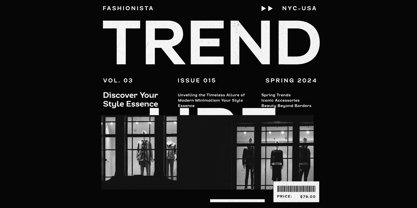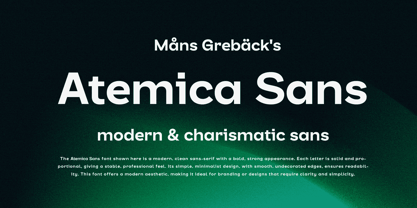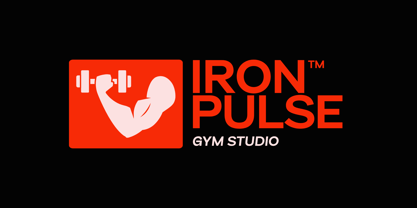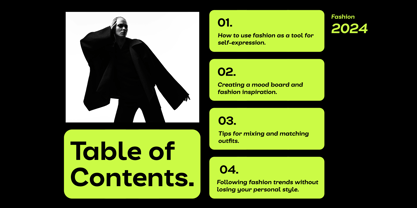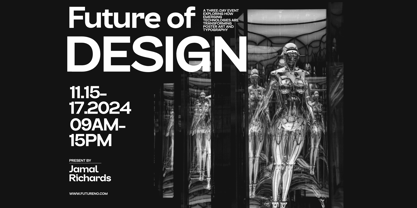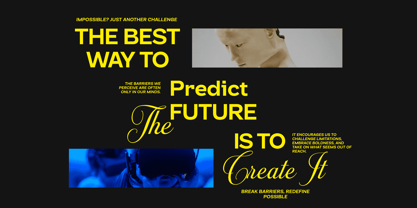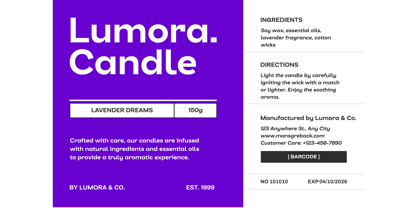
Atemica Sans
by Mans Greback
The Atemica Sans Font Family was designed by Måns Grebäck and published by Mans Greback. Atemica Sans contains 2 styles and family package options. More about this family
Atemica Sans is a sturdy and versatile sans-serif, designed with both readability and aesthetic in mind. Its letterforms are constructed from simple geometric shapes, resulting in a contemporary, almost technical look. The even distribution of weight and open counters make it a strong choice for any project that requires clarity and a clean look. Use it for branding, signage or body text.
This font has been created with meticulous attention to detail, ensuring a smooth and consistent appearance across all glyphs.
The font is built with advanced OpenType functionality and guaranteed top-notch quality, containing stylistic and contextual alternates, ligatures and more automatic and manual features; all to give you full control and customizability.
It has extensive lingual support, covering all Latin-based languages, from North Europa to South Africa, from America to South-East Asia. It contains all characters and symbols you'll ever need, including all punctuation and numbers.
Mans Greback has crafted this typeface with a focus on a geometric structure and high readability. It's a perfect blend of modern and timeless design.
Designers: Måns Grebäck
Foundry: Mans Greback